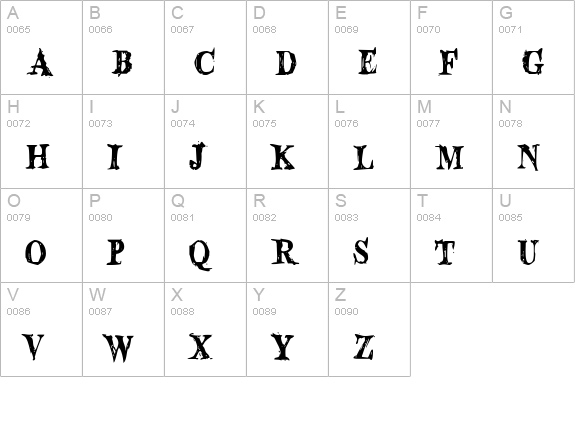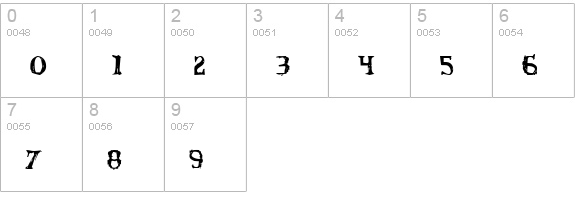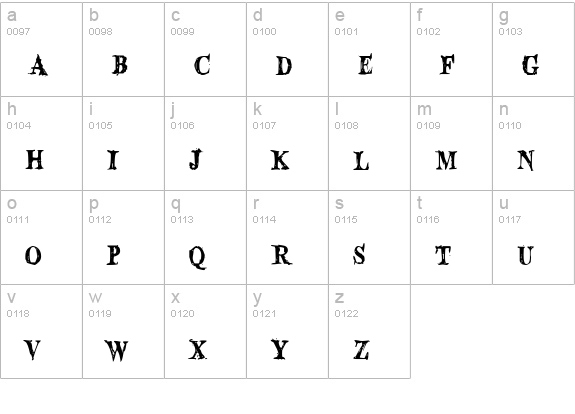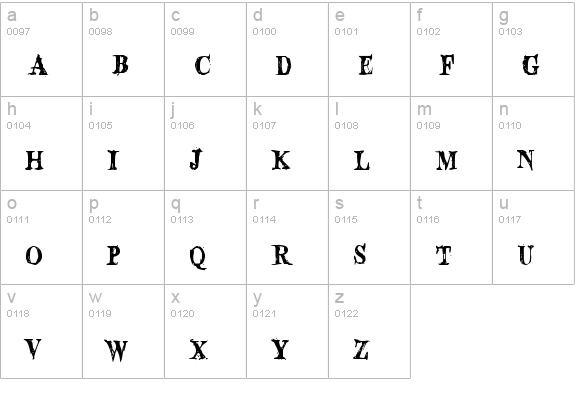
Blood Crow Condensed is a distinctive, condensed-width variant in the Blood typeface family \xE2\x80\x94 well suited to design and typography projects.
Blood Crow Condensed font is a striking and bold typeface that exudes power and intensity. With its sharp edges and intricate details, this font is perfect for projects that require a touch of darkness and mystery. The condensed design adds a sense of urgency and drama to any text, making it an ideal choice for headlines, posters, and branding materials. What sets Blood Crow Condensed font apart is that it is available for free download at FontsMarket.com. This means that you can easily access this unique and eye-catching font without any cost, making it a valuable addition to your design toolkit. Embrace the darkness and unleash your creativity with Blood Crow Condensed font today!